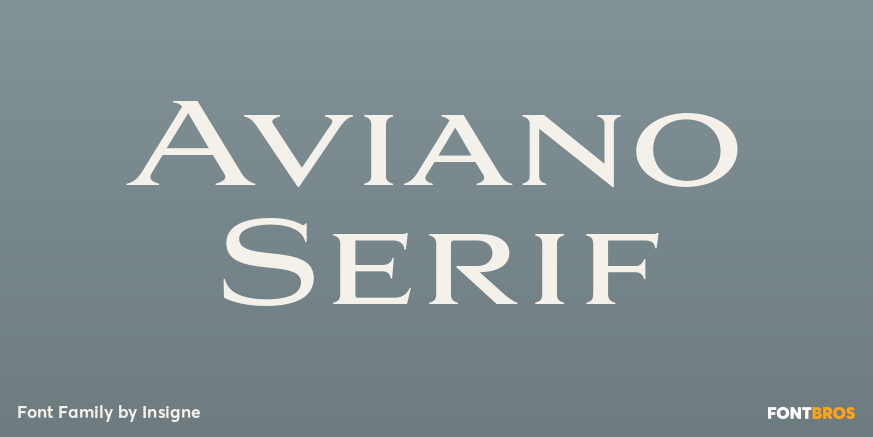
Aviano Serif
About Aviano Serif
Insigne\’s popular Aviano series returns with Aviano Serif. Aviano Serif features the same classically inspired and extended proportions of Aviano, but instead of the brush drawn forms of the original, Aviano Serif features a more geometric take with…